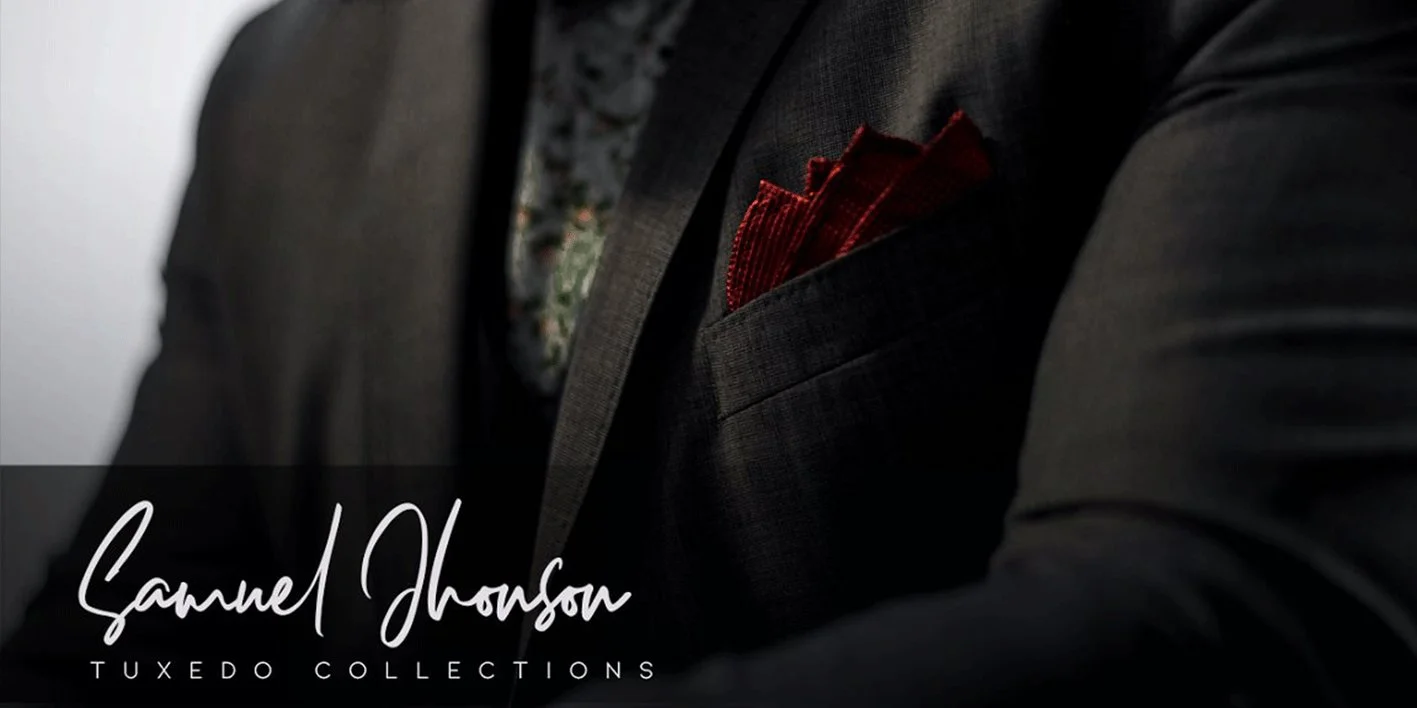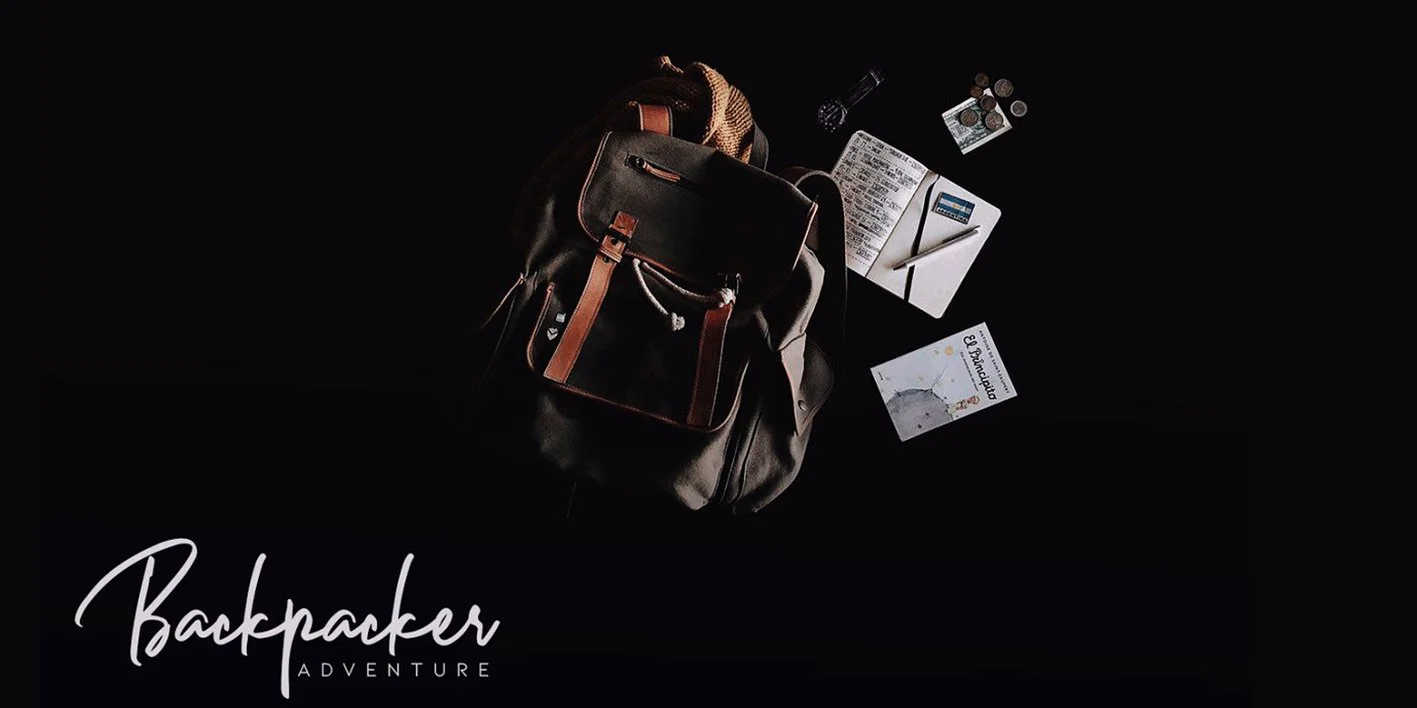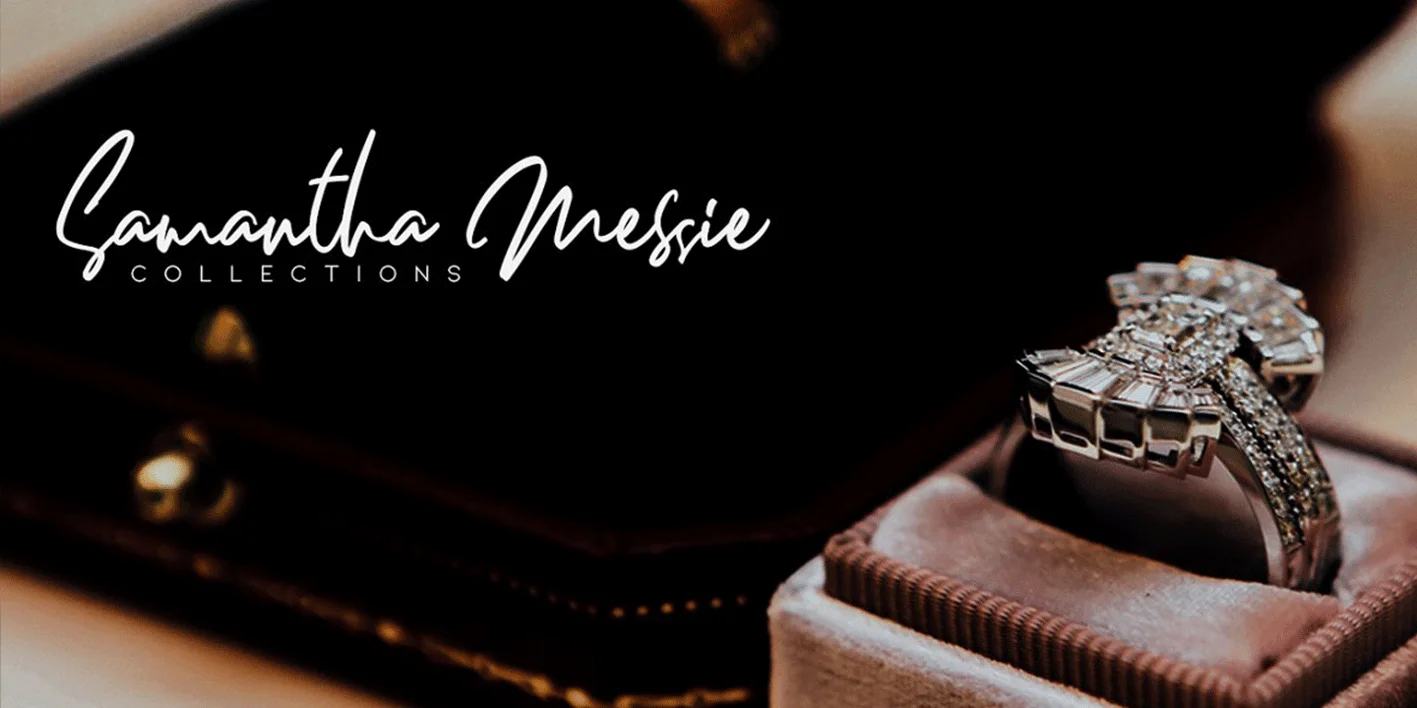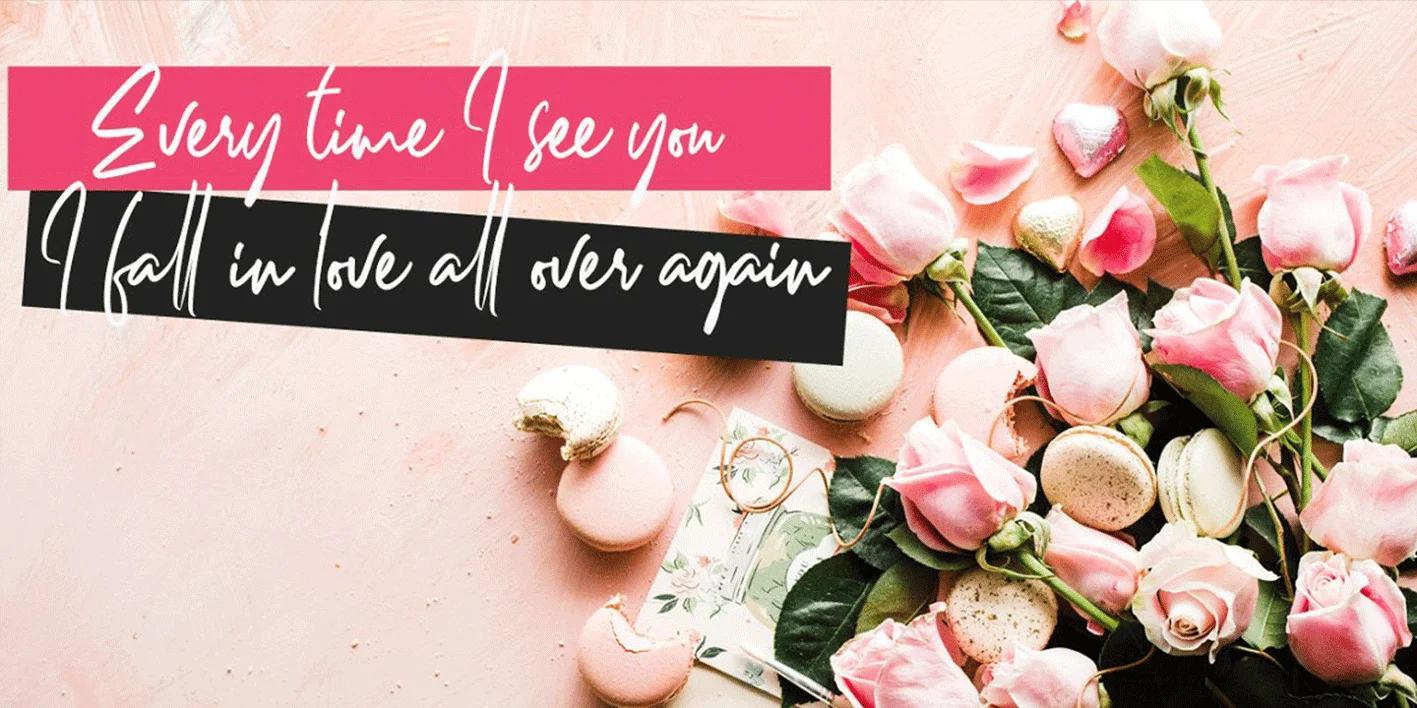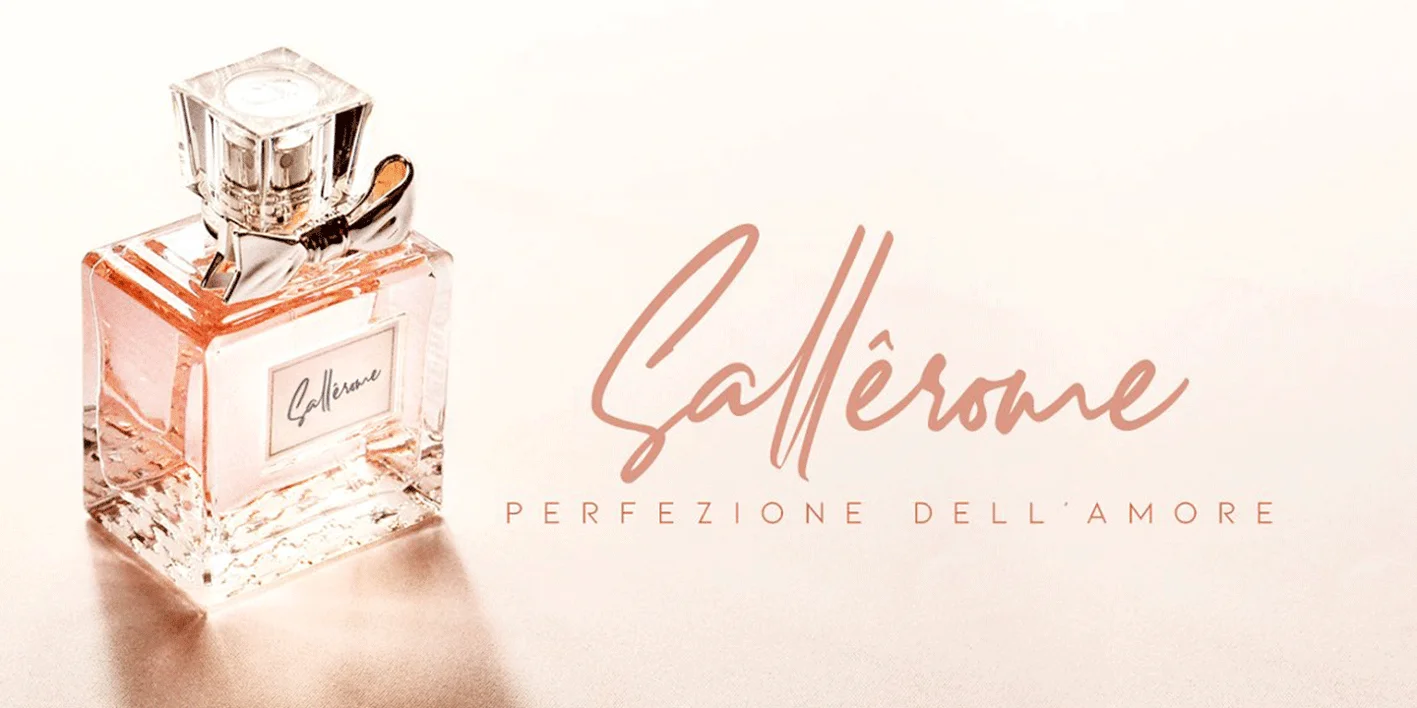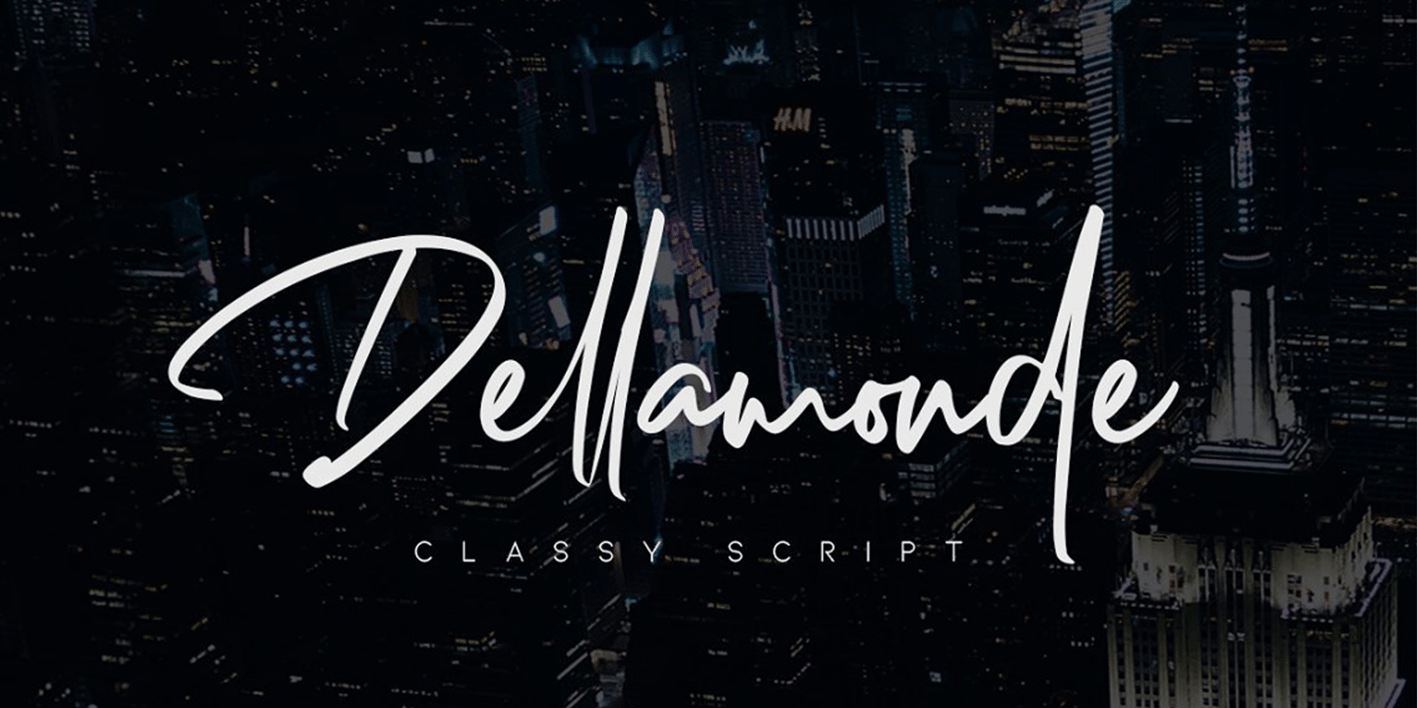
Dellamonde Font
There is a particular satisfaction in finding a typeface that delivers refined proportions and careful stroke modulation without compromise. Dellamonde consistently provides it. The typeface brings an elegant, calligraphic sensibility to a broad range of creative disciplines, with the kind of restraint that lets content lead that holds up whether the work is print-first or screen-first.
In practice, Dellamonde proves particularly effective for luxury stationery, wedding invitations, poster creation, product labels, perfume labels. Designers reaching for it find that the type decisions feel resolved rather than laboured — a useful quality when client timelines are tight.
The range of applications extends to boutique logos, logo design, advertising campaigns, beauty packaging. That breadth is deliberate: the proportions and spacing were stress-tested across a wide range of mock briefs before the typeface was finalised.
At smaller sizes the design retains its character without becoming cluttered. This resilience across scales makes Dellamonde equally suitable for a business card and a billboard — a useful property when assets must scale across a campaign.
Art directors commissioning type-led campaigns find Dellamonde a reliable choice for projects that demand both personality and restraint. The design avoids the self-conscious quirkiness that dates quickly, settling instead for considered distinctiveness that holds up over time.